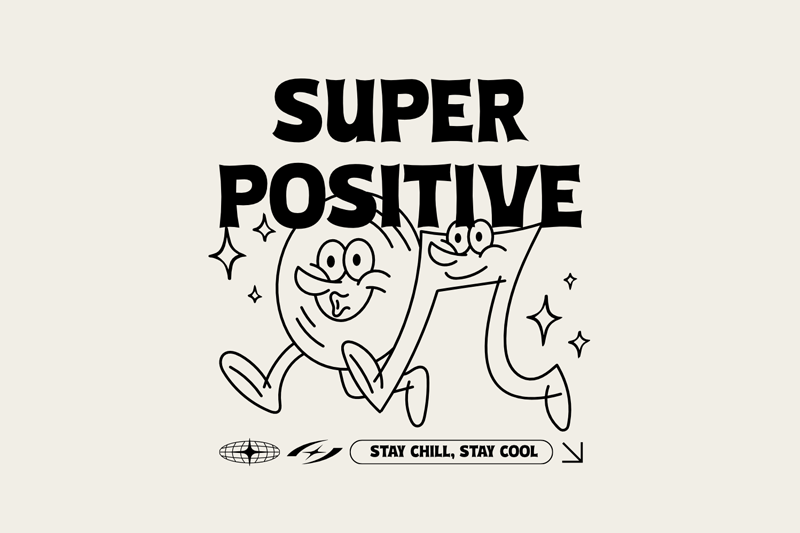
Font name: | Super Positive |
This font is for PERSONAL USE ONLY!. If you want to use this font for commercial purposes, you will need to purchase a commercial license. You can purchase a commercial license at https://allsuperfont.com/product/super-positive/ Introducing "Super Positive": A Headline Font with Infectious Optimism! Super Positive is a bold and vibrant headline font designed to infuse your projects with infectious optimism. Its playful personality guarantees your words will grab attention and make a lasting impression. |